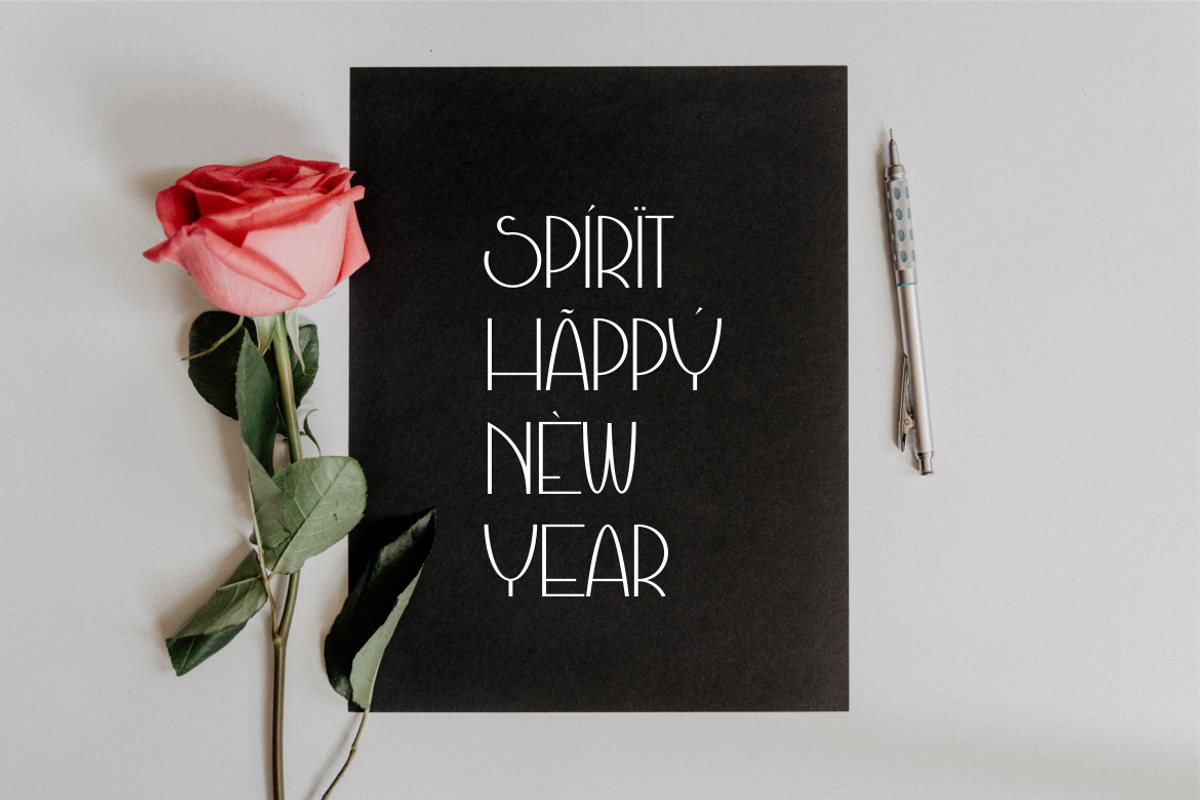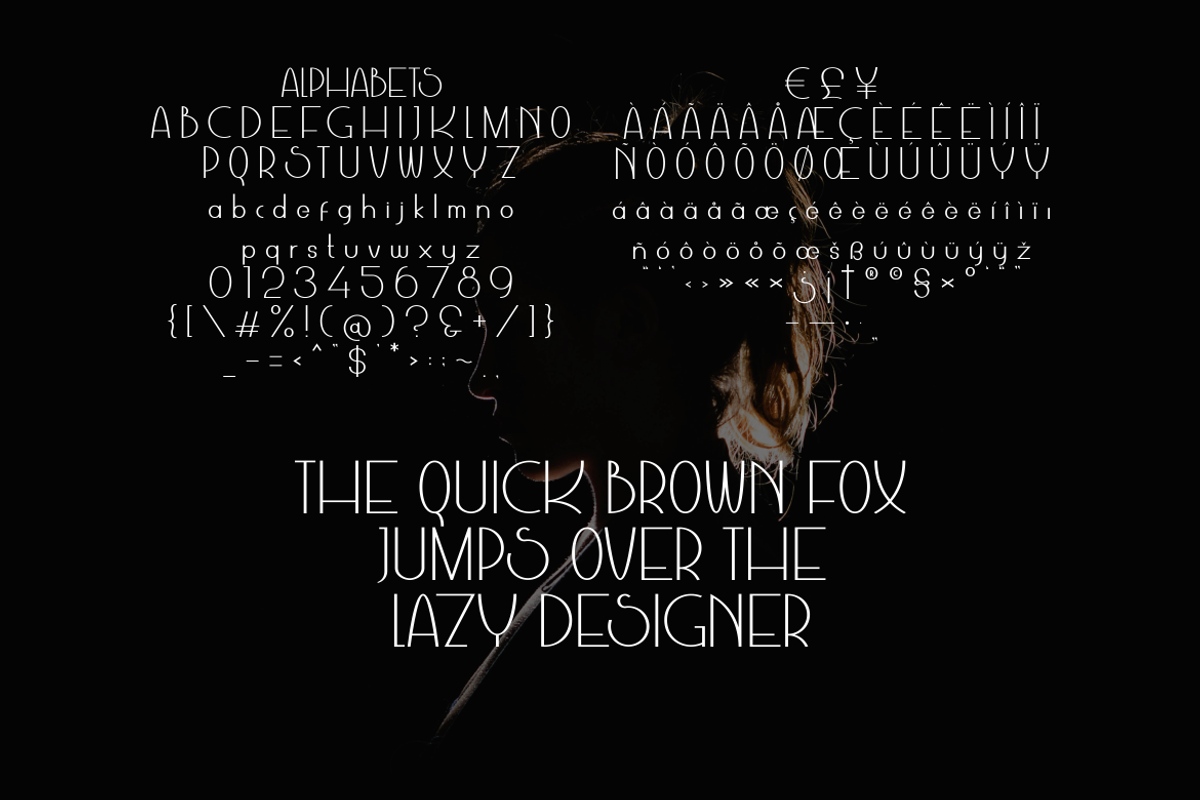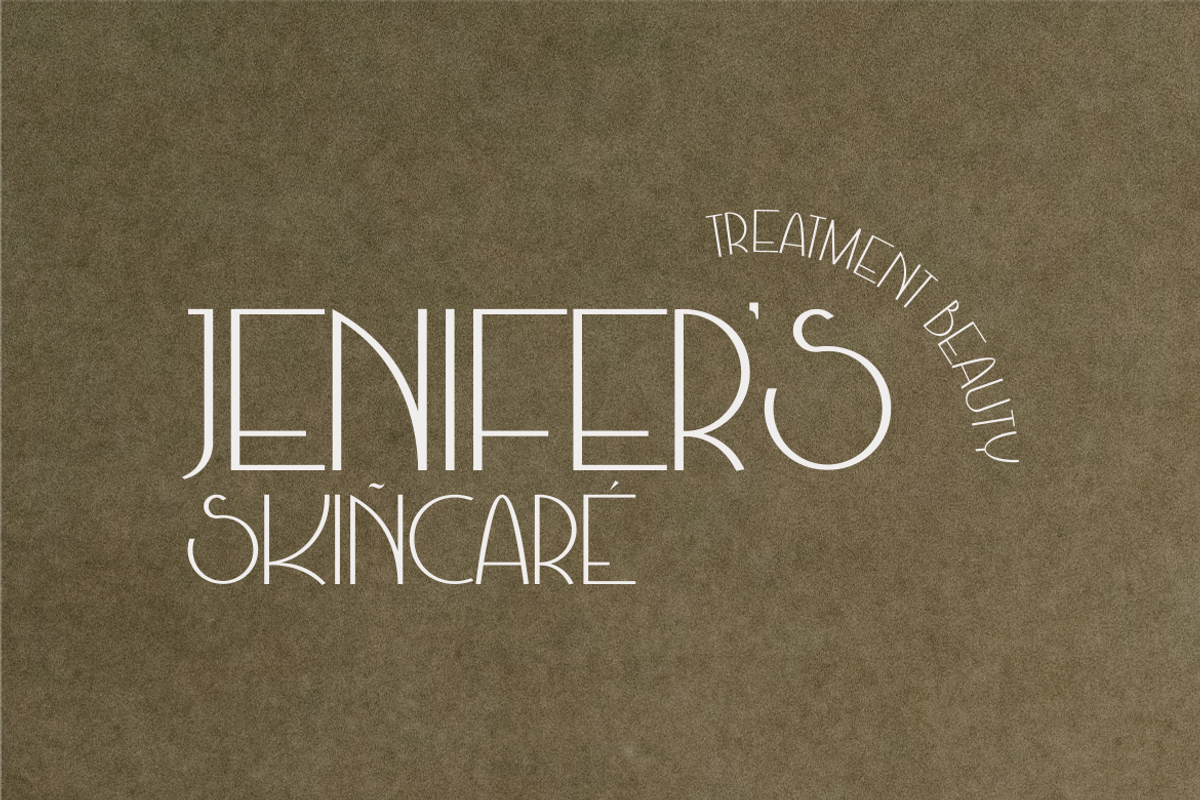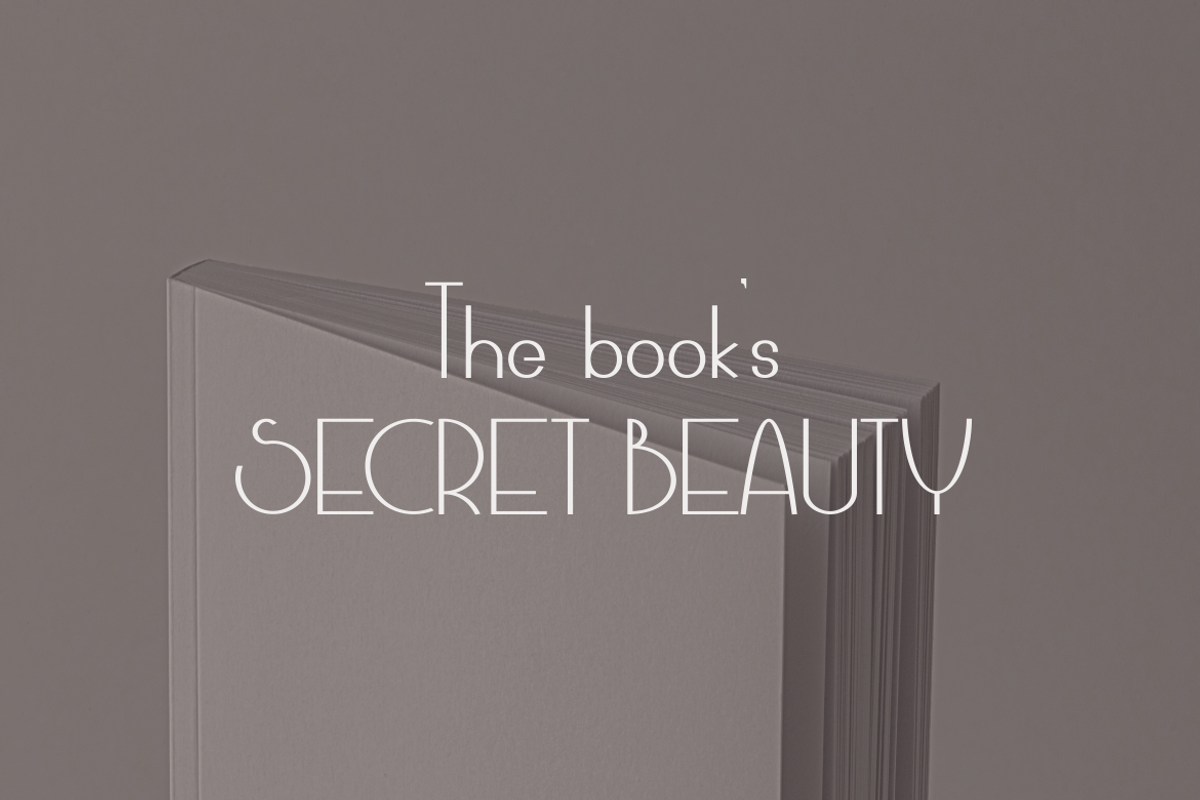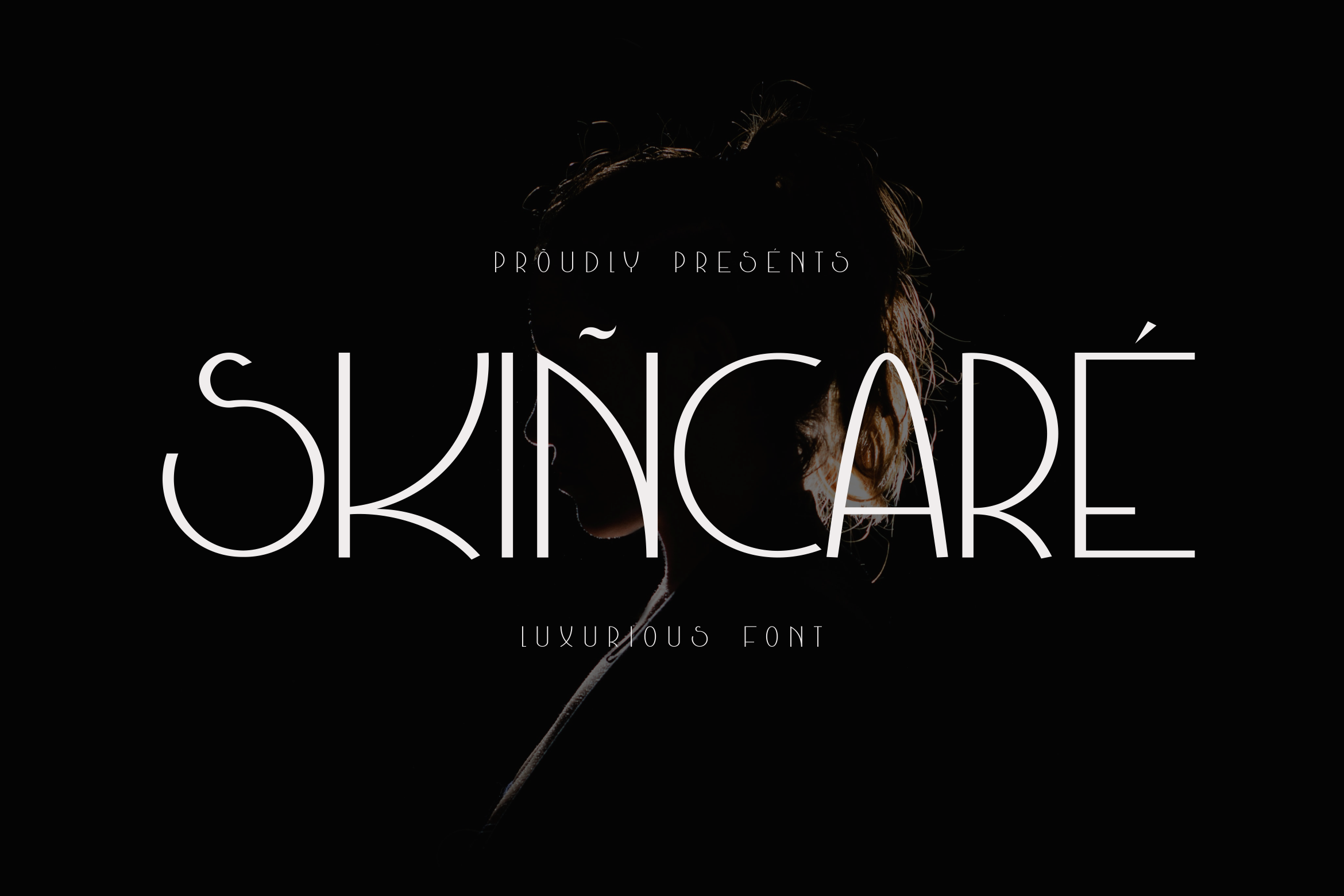
Skincare Beauty Font Style
Introducing beautifully sophisticated typography ideal for women's products - our elegant font. With its delicate curves and exquisite design, it speaks directly to the soul of skincare. Regardless of the product, our font elevates any branding, enveloping it in pure elegance. Its sophistication enhances visual appeal, making it a premium choice to showcase skincare products, or indeed, anything that seeks to captivate the discerning female audience. Embrace our carefully crafted typography and let your products be portrayed in their best light.